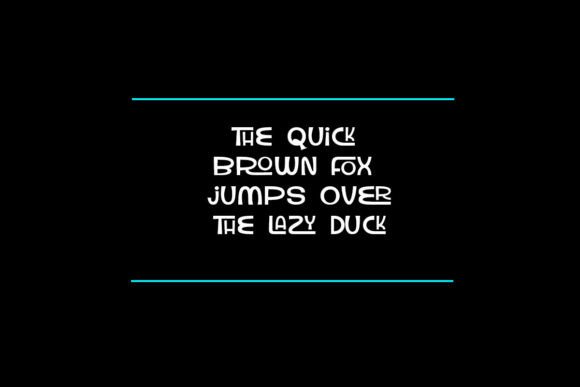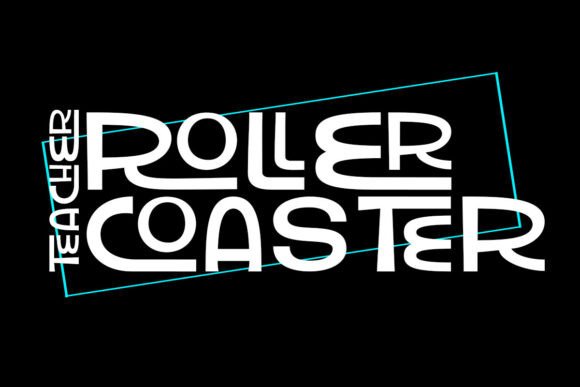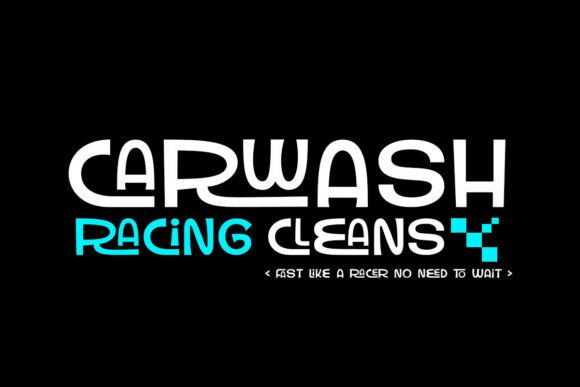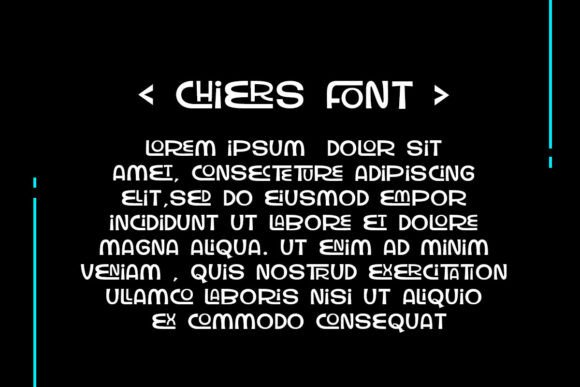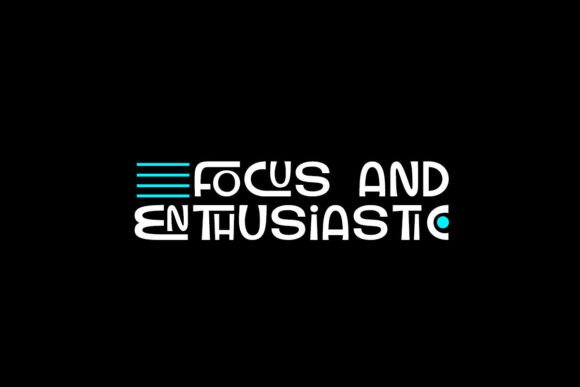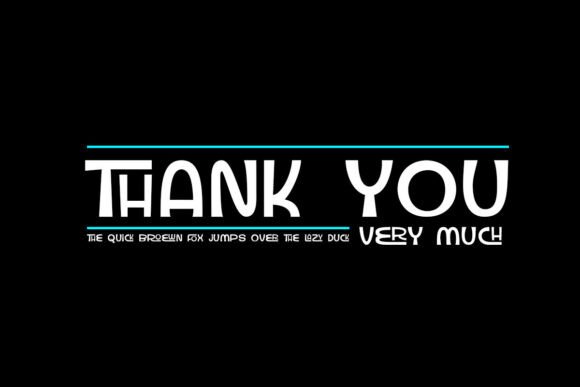
Get Ready to Party with Your Next Creative Project
As a designer, you’ve probably been there – staring at a blank canvas, waiting for the perfect spark to ignite your next project. The pressure to create something truly unforgettable can be overwhelming, but what if you had the perfect tool to get the party started? Enter Chiers Font, a vibrant sans-serif display font designed to bring a sense of celebration and modern flair to your typography.
With its unique blend of geometric curves and sharp, avant-garde cuts, Chiers Font is the perfect choice for luxury event branding, sophisticated cocktail bar menus, high-end fashion mastheads, and contemporary logo design. This versatile font is a game-changer for designers looking to elevate their creative projects and make a lasting impression on their audience.
Chiers Font Key Features
- Size: The font family includes multiple weights, ranging from Thin (100) to Bold (700), allowing designers to choose the perfect style for their project.
- Resolution: Chiers Font supports high-resolution displays, making it ideal for use in digital design, including websites, mobile apps, and social media graphics.
- Unique Characteristics: Chiers Font features a unique blend of modern and vintage elements, with intricate details and ornate flourishes that add a touch of elegance to any design.
- Font Family: The Chiers Font family includes multiple styles, including Regular, Italic, Bold, and Bold Italic, providing designers with a range of options to suit their needs.
- Language Support: Chiers Font supports a wide range of languages, including Latin, Cyrillic, and Greek scripts, making it a versatile choice for designers working on international projects.
Review: Chiers Font
I recently had the chance to work with the Chiers font, and I’m here to share my honest thoughts.
- The unique blend of modern and vintage elements gives Chiers a distinctive feel that can elevate any design.
- The font’s bold weight is perfect for headlines, adding a touch of sophistication and elegance.
- The font’s legibility is excellent, making it suitable for a wide range of applications, from body text to titles.
- The font may not be the best choice for very small text sizes, as the strokes can become fuzzy.
- The font’s italic and oblique styles could be improved for better consistency with the regular weight.
While Chiers Font has its limitations, it’s a solid choice for designers looking to add a unique touch to their projects. The font’s bold weight and excellent legibility make it a great option for headlines, and its modern-vintage feel can add a lot of character to a design. With a bit of tweaking to address the limitations, Chiers Font could be a top contender in the font market.
Getting the Most Out of Chiers Font
Chiers Font is a versatile font that can be used in a variety of designs.
Here are some tips for getting the most out of it:
Use it in bold or italic to add emphasis to your text.
Combine it with other fonts to create a unique and interesting typography.
Chiers Font is suitable for a variety of use cases, including:
Graphic design and branding.
Web design and development.
Print design and
Alternatives to Chiers Font for Designers
Montserrat is a popular sans-serif font that is highly legible and versatile. It’s ideal for use in digital designs, such as mobile apps, websites, and social media platforms. Montserrat has a strong and modern feel, making it a great alternative to Chiers Font for designers who want a clean and contemporary look.
Comparison: Montserrat has a more geometric and modern feel compared to Chiers Font’s more elegant and classic look. While Chiers Font is ideal for luxury and high-end designs, Montserrat is better suited for modern and tech-savvy audiences.
Lato is a modern sans-serif font that is highly customizable and versatile. It’s ideal for use in digital designs, such as websites, mobile apps, and advertising materials. Lato has a clean and friendly feel, making it a great alternative to Chiers Font for designers who want a modern and approachable look.